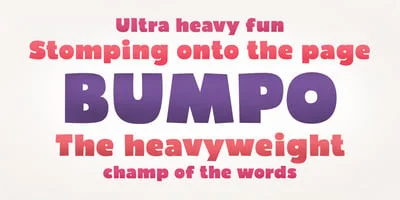
Bumpo Font
Bumpo Font is perfect for children's toy packaging, playful brand logos, comic book lettering, fun app interfaces, cartoon character design, party invitation cards, ice cream shop signage, playground equipment branding, kids' educational materials, and whimsical social media graphics.
What makes Bumpo Font so exciting is its irresistibly bouncy personality that instantly brings joy and playfulness to any design project. This delightfully bubbly display typeface features rounded letterforms, exaggerated curves, and cheerful proportions that create an immediate sense of fun and lighthearted energy, making it the perfect choice for brands that want to communicate happiness, creativity, and child-like wonder.
The Bumpo Font family includes regular, bold, outline, and shadow versions, along with playful symbols, smiley faces, star motifs, and fun decorative elements. Each style maintains the font's signature bouncy character while providing designers with versatile options for creating genuinely entertaining communications that make audiences smile and feel instantly uplifted.
Whether you're designing for children's entertainment companies or fun lifestyle brands, Bumpo Font delivers the pure joy needed to connect with audiences who appreciate life's playful moments. The font's cheerfully crafted letterforms ensure excellent readability while maintaining its distinctive bubbly character that resonates with both children and adults who embrace their inner child.
This delightfully energetic typeface works wonderfully across both colorful print materials and vibrant digital platforms. The Bumpo Font maintains its bouncy appeal whether jumping off toy packaging or dancing across animated websites, making it essential for brands that celebrate fun, creativity, and the simple joy of being playful.
Bounce into pure fun with Bumpo Font and experience typography that giggles with the unbridled joy of childhood imagination and playful creativity.